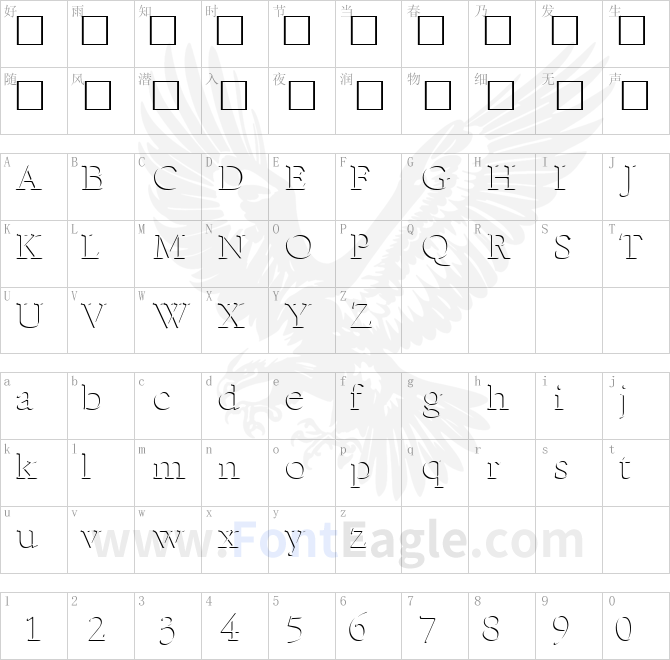
Relief-Serif-1- is a great font, widely used in graphic design, single-page menu design, poster design and other fields, and is deeply loved by designers.Relief-Serif-1- download.